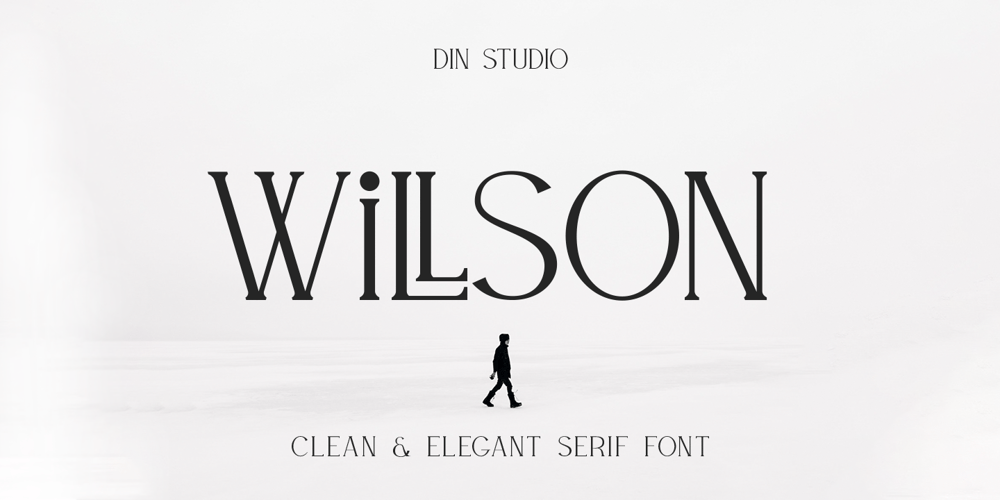
Willson
Willson font
Willson Font Family was designed by Donis Miftahudin and published by Din Studio. Willson contains 1 styles and family package options. Say hello to Willson – Clean Serif Font, Willson designed with a modern and clean style. It’s suitable for branding, logo, printing and many other designs.Features: Accents (Multilingual characters) 6 Alternates 11 Ligatures PUA encoded Numerals and Punctuation (OpenType Standard) Thanks for visiting and purchasing my font!